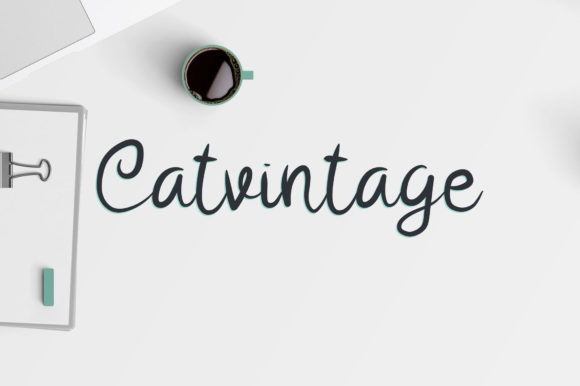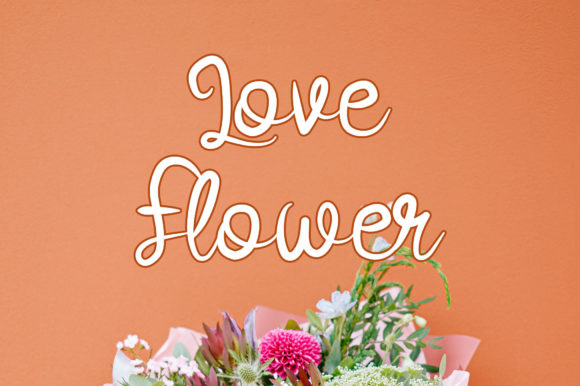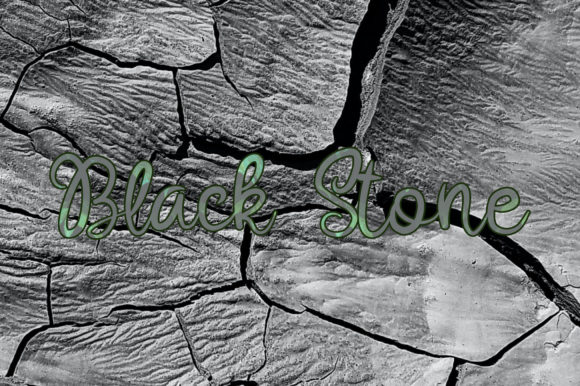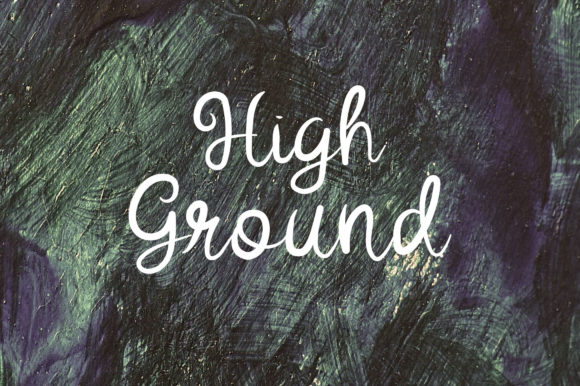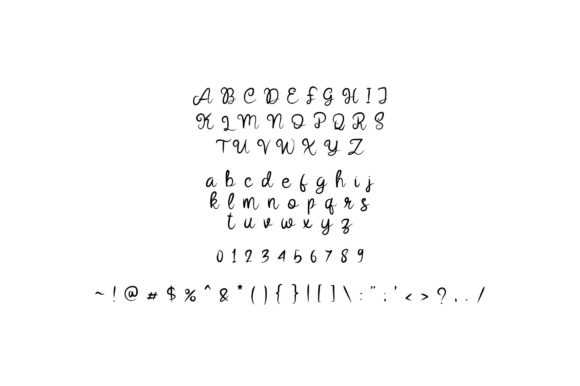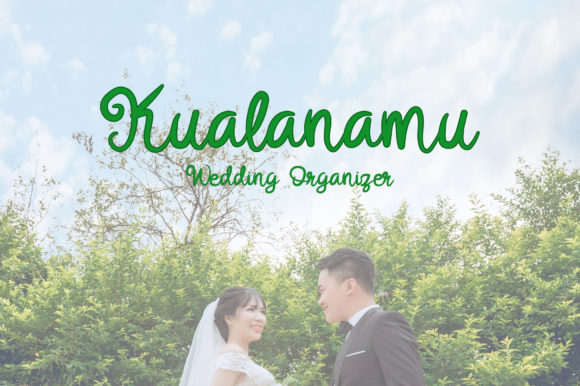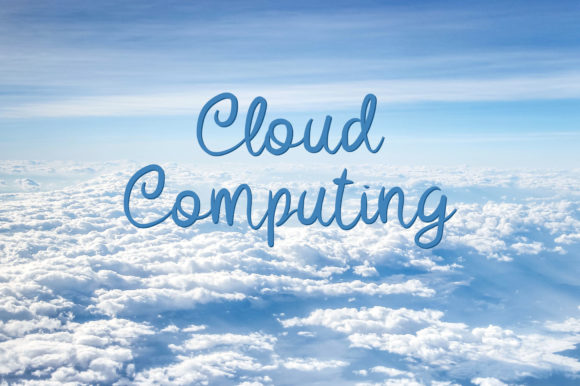
Catvintage Font
About Catvintage Font
Catvintage is a beautifully curved script font with cool strokes that adds a touch of elegance and style to your designs. With its sleek characters dancing along a baseline, this font brings a unique and visually appealing composition to any creation. It adds a cheerful, sharp, and romantic touch, making it perfect for promotional projects and beyond.
The beautifully curved nature of Catvintage sets it apart and adds an element of sophistication to your designs. The font’s cool strokes and sleek characters create a visually pleasing composition that captures attention. It adds a touch of elegance and style, making your creations stand out and exude a sense of charm and allure.
Catvintage’s versatility makes it suitable for various promotional projects. Whether you’re working on branding materials, advertisements, social media graphics, or any other creative endeavor that requires a visually striking and romantic touch, this font delivers. Its unique design enhances the overall aesthetic and creates a visually captivating experience for viewers.
By incorporating Catvintage into your promotional projects, you infuse them with a sense of cheerfulness and sharpness. The font’s beautifully curved script style adds a romantic touch, creating an atmosphere of romance and allure that engages and captivates your audience. Embrace the sleek and cool nature of Catvintage, and watch as it adds a delightful and visually appealing touch to your promotional projects, leaving a lasting impression.
In summary, Catvintage is a beautifully curved script font with cool strokes that adds elegance and style to your designs. Its sleek characters dancing along a baseline create a visually pleasing composition. Embrace the cheerful, sharp, and romantic touch of Catvintage, and let it enhance your promotional projects, bringing a sense of charm and allure that captivates your audience.